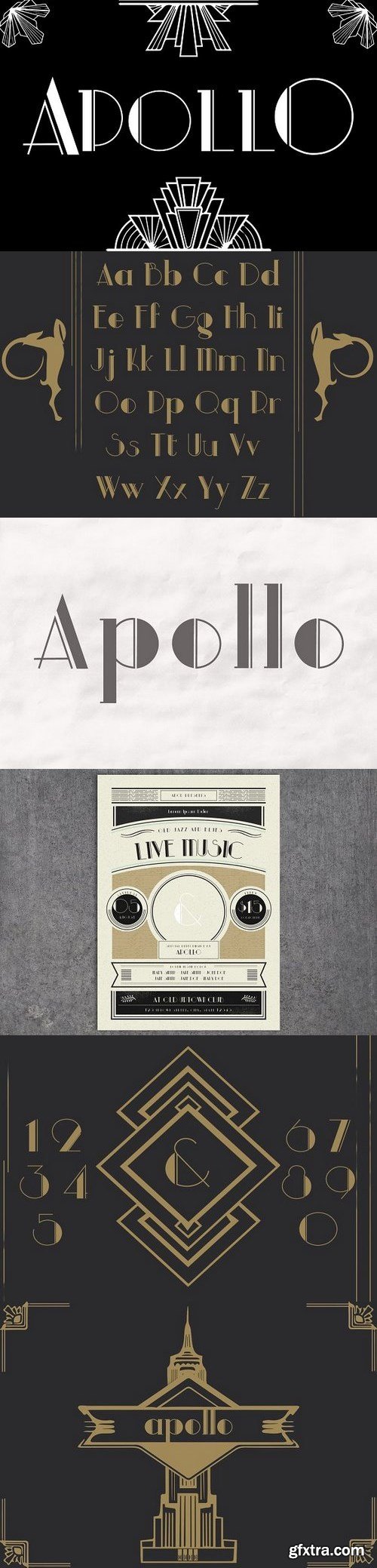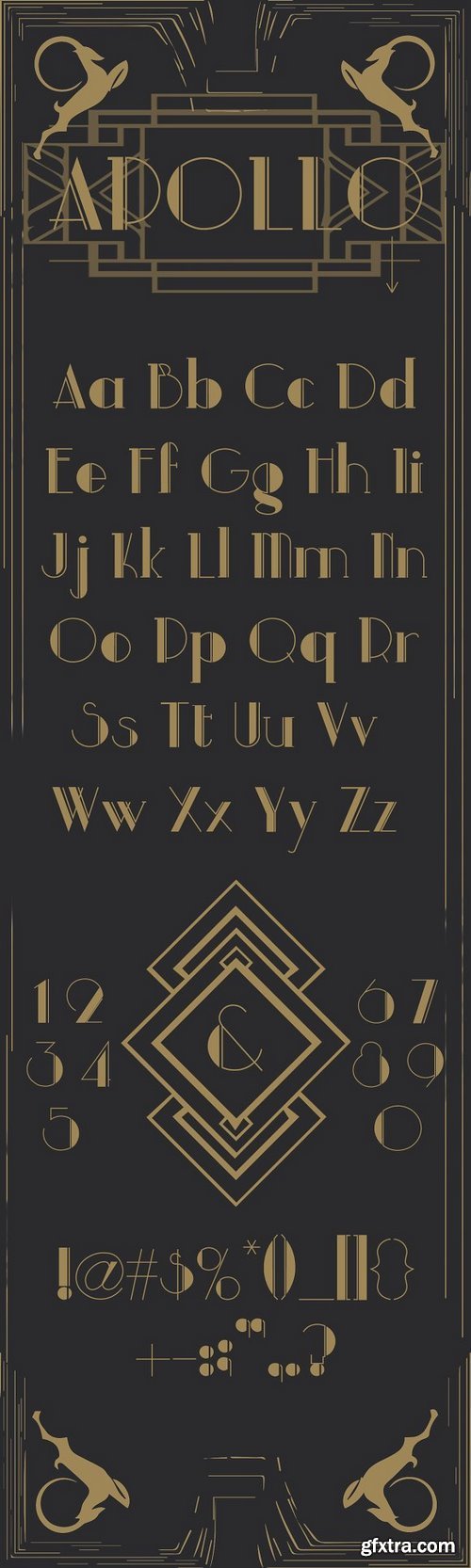
Apollo a modern sans serif
APOLLO is a modern font family. It concludes uppercase and lowercase letters with numbers and punctuation. There is classic notations along with my personal style. This font is a personal desire for a clean modern font with a retro style.